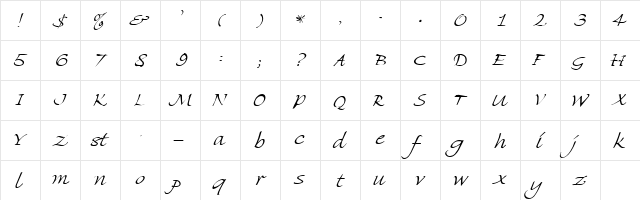
Negative Oblique Font Preview
Negative Oblique
Negative Oblique Font Details
Design Context for Negative Typeface
Negative is a composed and adaptable typeface that performs quietly and consistently across a wide range of design contexts. The dynamic lean of this cut emphasises speed and emphasis in any layout.
Pro Tip: Try Negative for annotation and caption copy alongside an upright companion — the contrast in angle creates a dynamic but ordered typographic system.